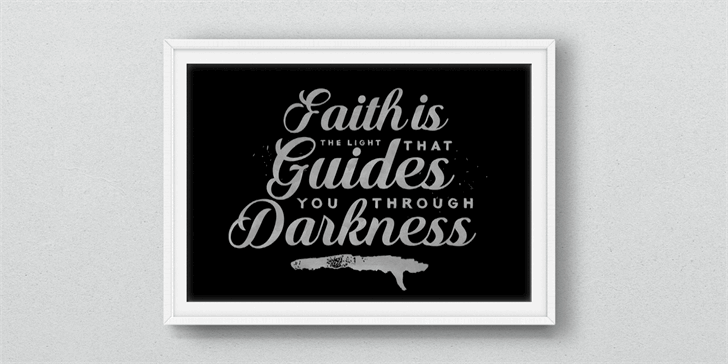
Quincho Script Font Mans Greback Fontspace. Quincho script personal use 400 (ttf). Quincho script is a trademark of mans greback. To purchase the full font and a commercial license, visit Quincho script personal use 400. Copyright (c) 2016 by mans greback. This font is for personal use only! Copyright (c) 2016 by mans greback. This font is for personal use only! Download the quincho script font by måns grebäck. This font is for personal use only! If you believe that this font is in violation of copyright and isn't legal, please let us know in order for the font. Quincho script personal use font — created in 2016 by måns grebäck to purchase a commercial license, visit Quincho script personal use file format: Free download of quincho script font. The quincho script font has been downloaded 220,860 times.
Check font license and view font details, character map, custom preview, comments, reviews. A high quality calligraphic font, clean with bold characteristics. Quincho script personal use font — created in 2016 by måns grebäck to purchase a commercial license, visit Quincho script font by måns grebäck free download. Download the quincho script font by måns grebäck. Quincho script personal use font custom preview tool. To embed your selected fonts into a webpage, copy this code into the head of your html document. Quincho script.ttf(.otf) for windows and mac. Quincho script font was designed by måns grebäck. This font is for personal use only! Quincho script has 1 style and free for personal use license. This font is for personal use only! If you believe that this font is in violation of copyright and isn't legal, please let us know in order for the font. To purchase the full font and a commercial license, visit Quincho script font is a high quality calligraphic font, clean with bold characteristics. Quincho script font ttf | 600 kb rar. Quincho script personal use quinchoscript_personaluse.ttf 174 kb | note: Quincho script free font was designed by måns grebäck and is a demo free for personal use only. Ttf | 834 mb rar. Quincho script personal use 400. Quincho script personal use file format: The quincho script font has been downloaded 220,860 times. Free for personal use font type: Quincho script personal use 400 (ttf). This font is for personal use only! (cookies must be enabled in your browser.) Check font license and view font details, character map, custom preview, comments, reviews. Download quincho script font (1 styles). Copyright (c) 2016 by mans greback. Please purchase the full version for commercial use. Quincho script is a trademark of mans greback.
Quincho script free font was designed by måns grebäck and is a demo free for personal use only.